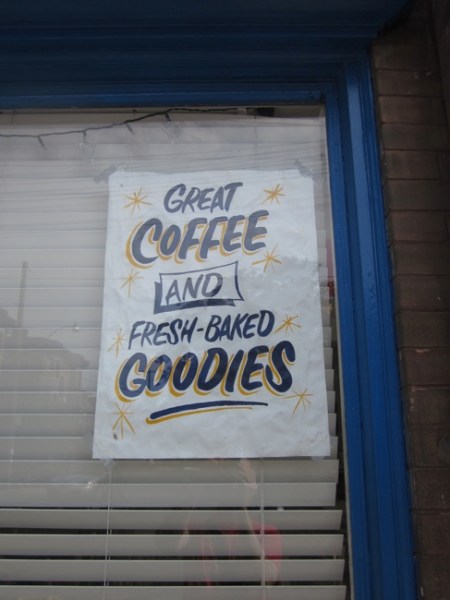
Great Coffee
I love signs that take you back in time. Here’s one that looks like something from another era.
Look at it long enough and who knows, maybe you’ll be transported to 1950s Toronto, in the seamless way Owen Wilson’s character time traveled in Midnight in Paris.
The cartoony exuberance of the lettering is touching and the scattering of yellow stars adds extra zest.
I’m going to make a point of trying the coffee here and when I do I’ll report back. If I end up time traveling, I’ll let you know.